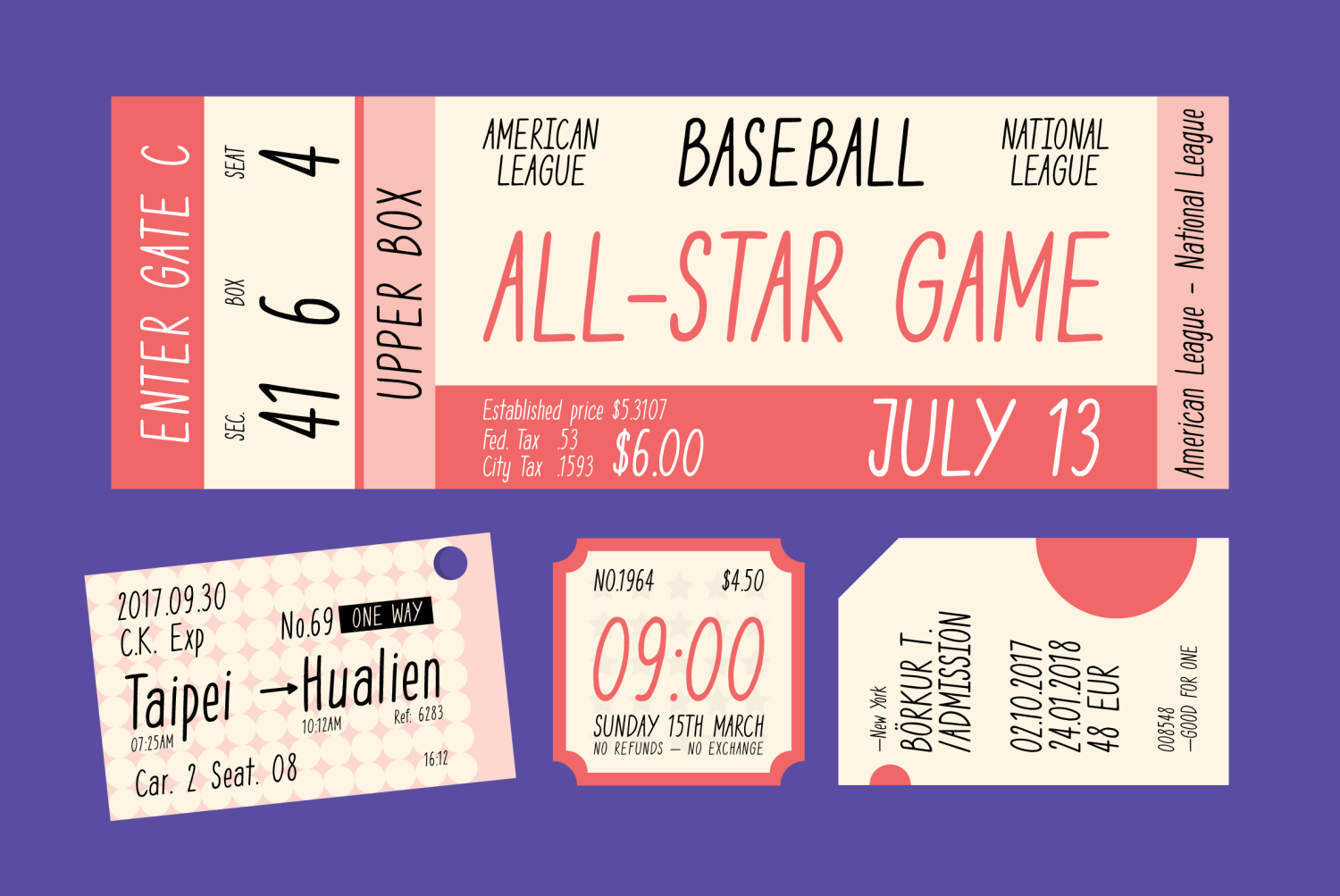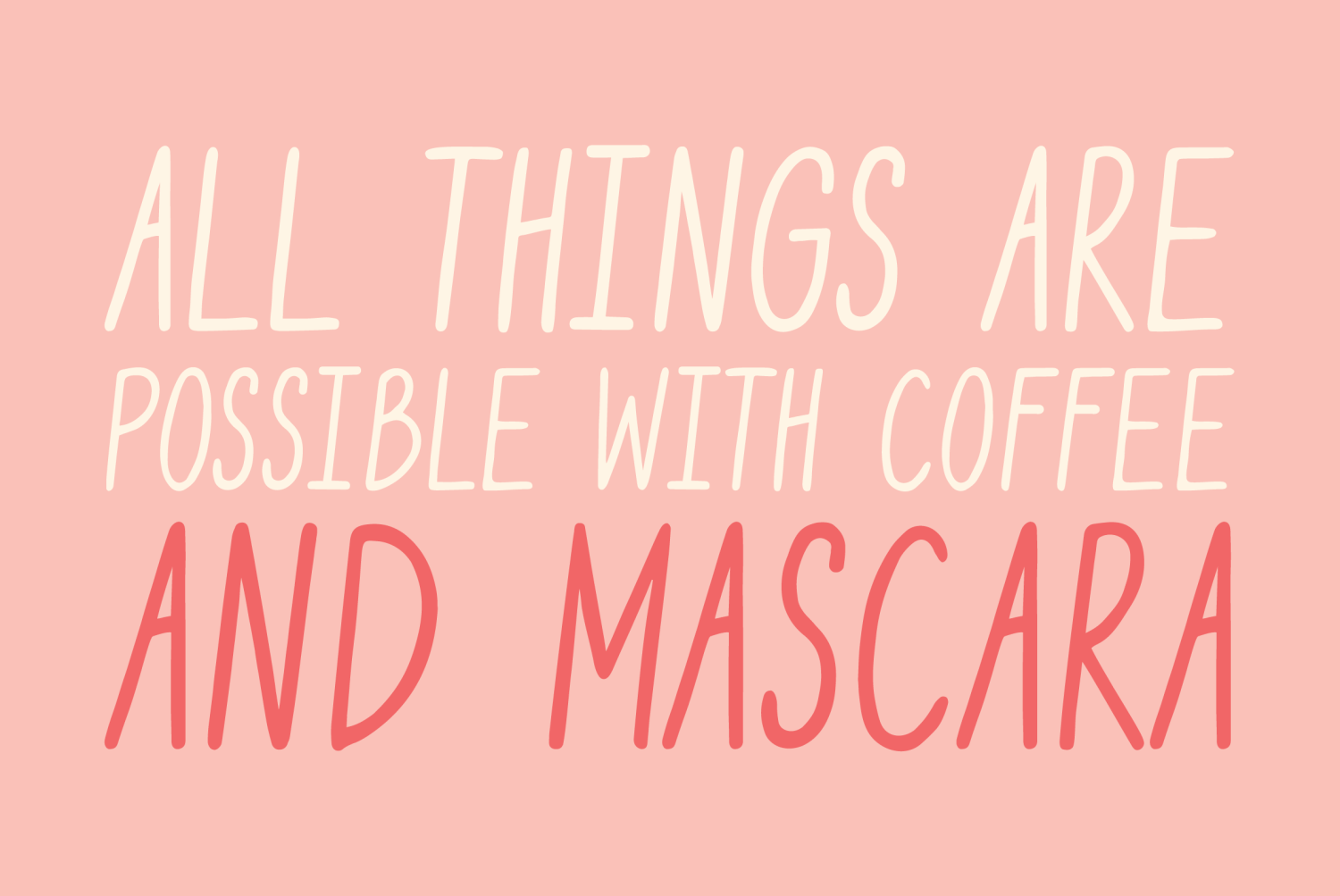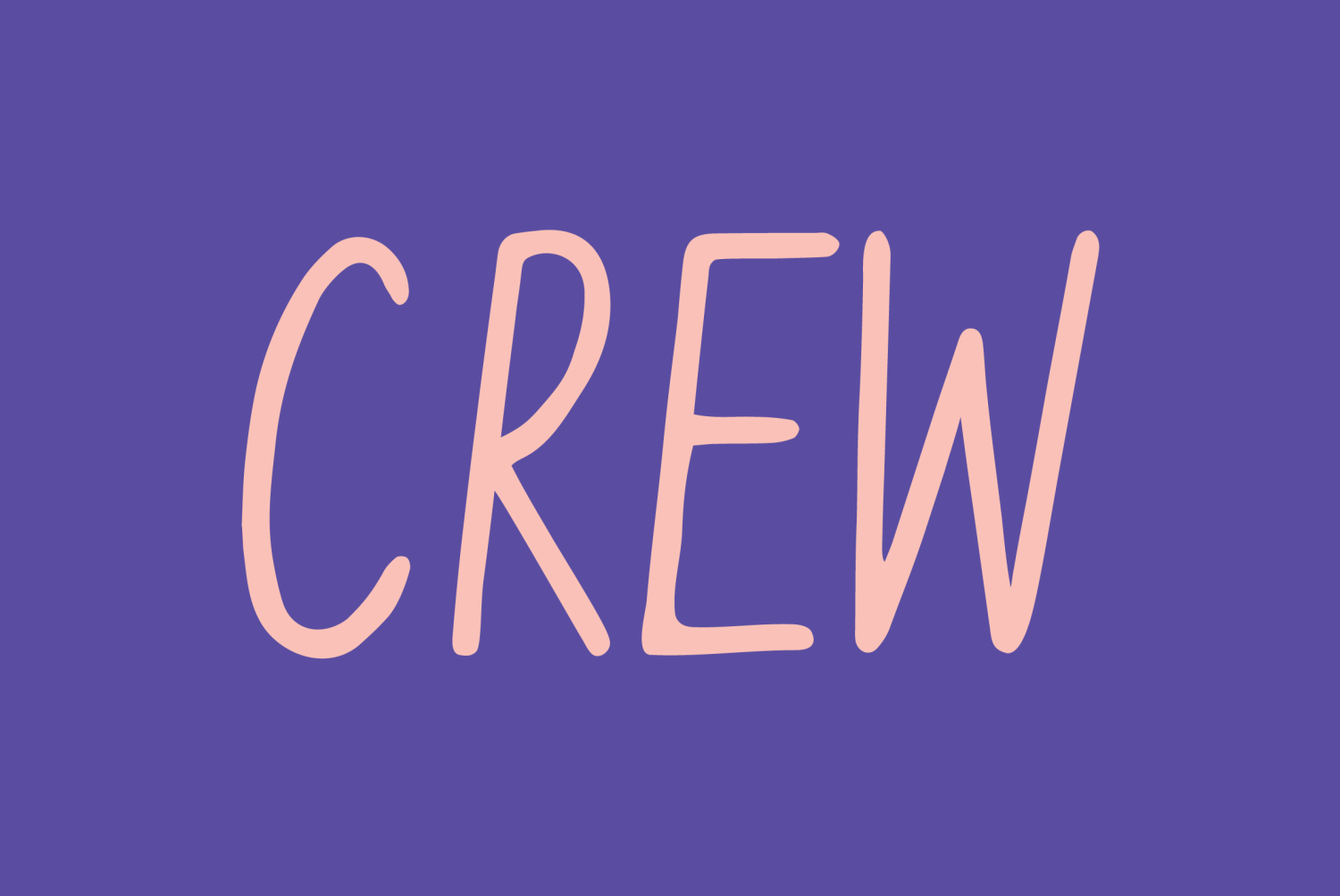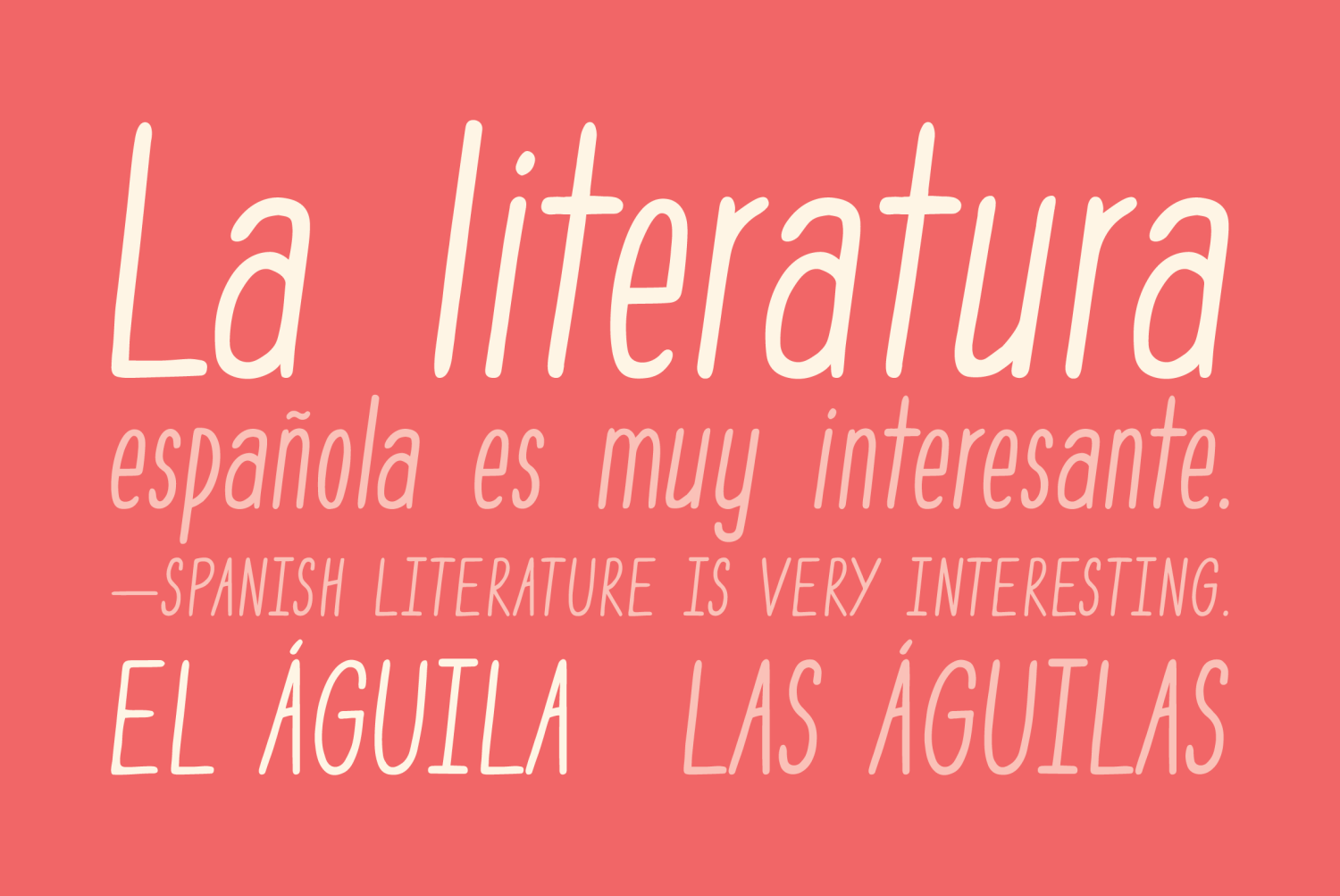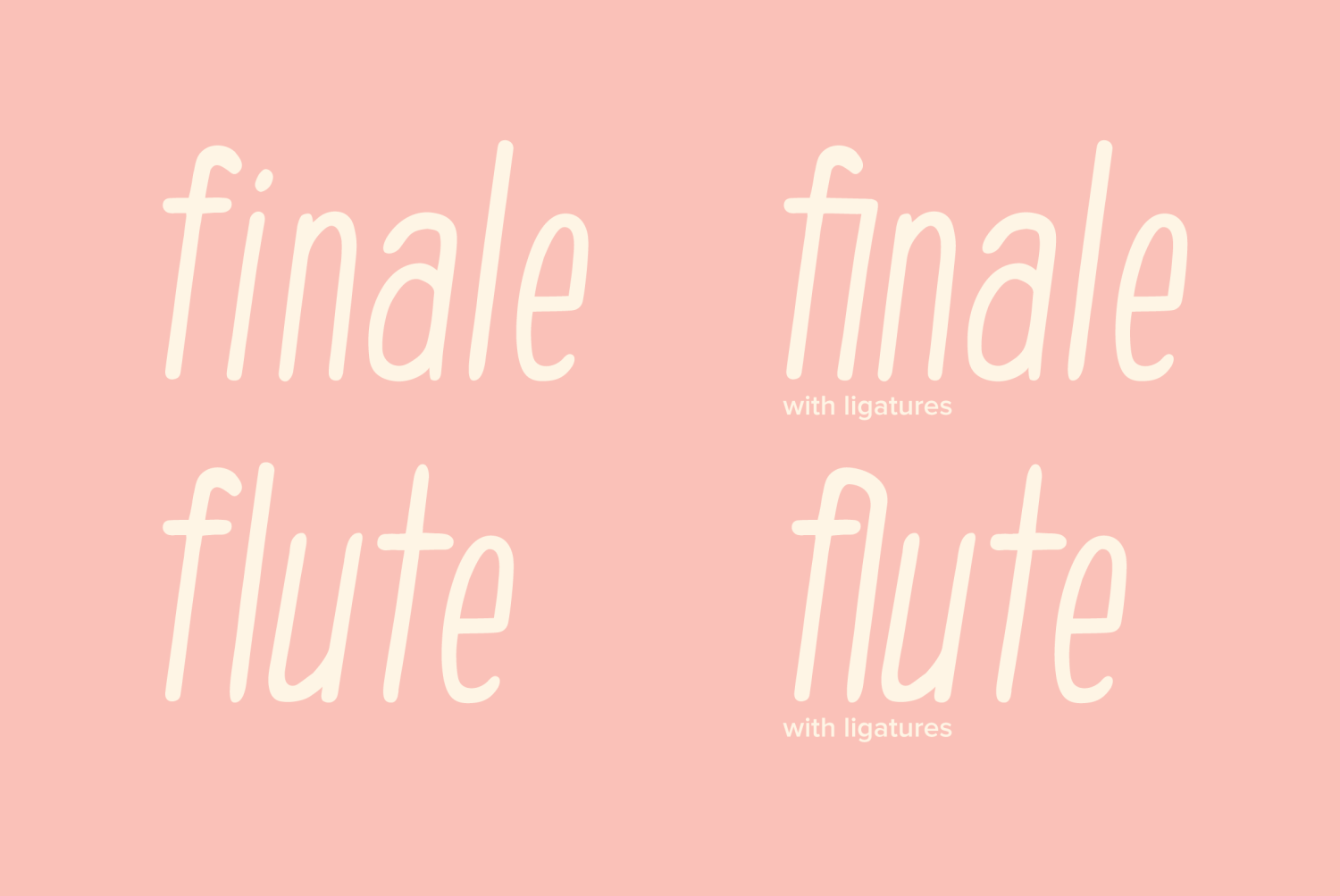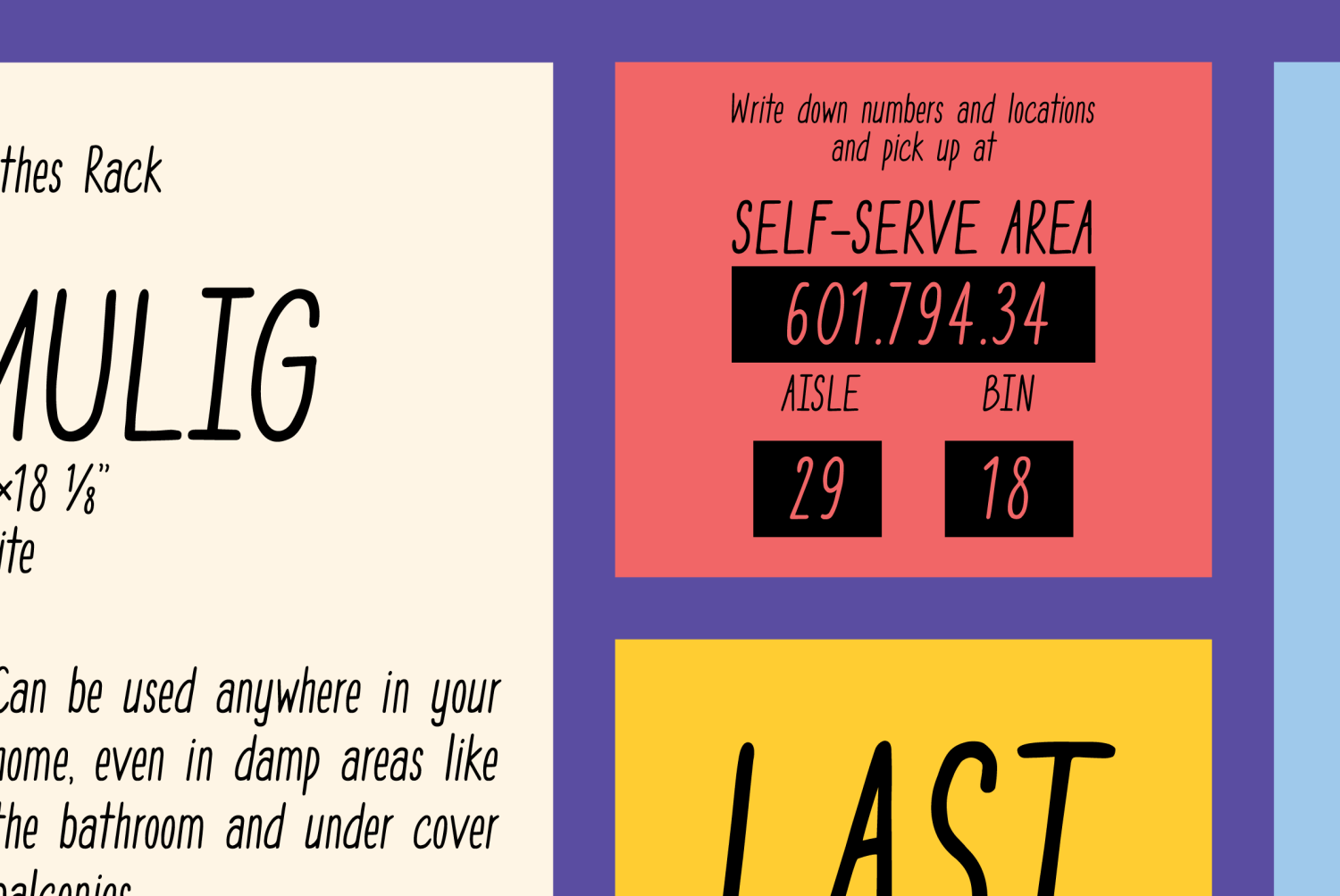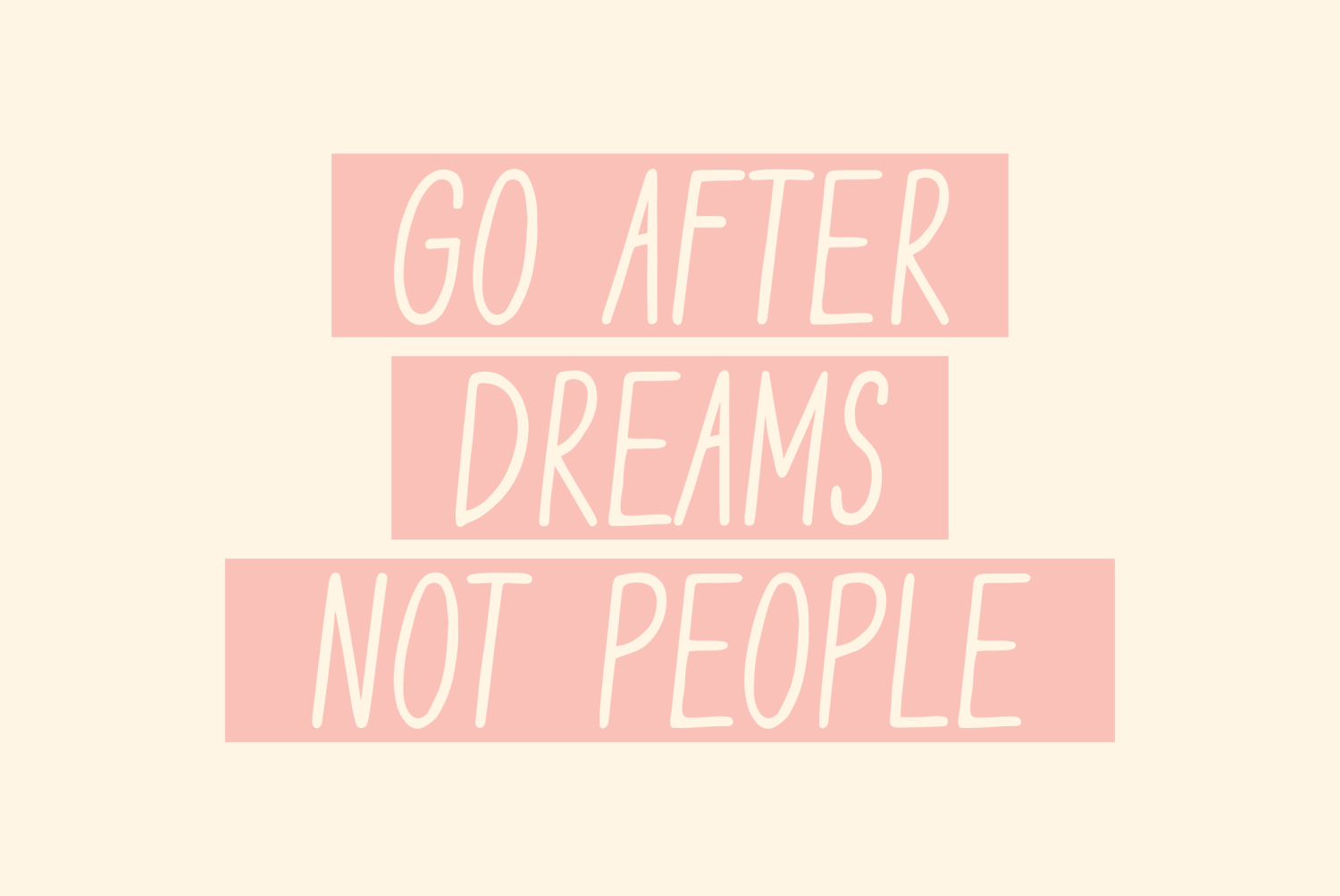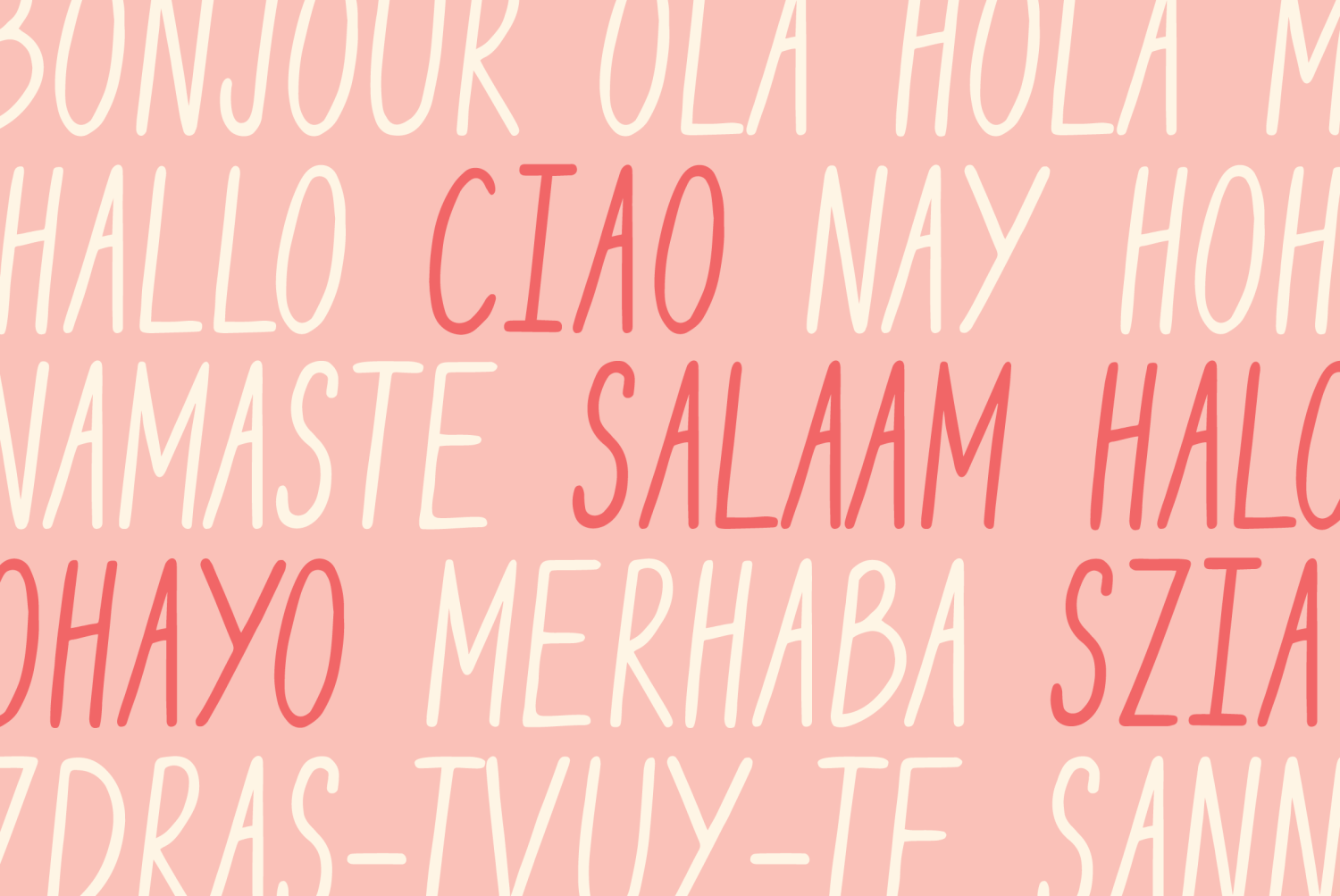
YWFT Crew
Buy NowCasual and expressive, YWFT Crew is a handwritten sans serif that pairs its natural, organic strokes with a subtle urban edge. Perfectly at home in a farmer's market tightly nestled along a busy metropolitan street, Crew is a wholesome, unrefined, and additivefree type design that's ideal for displays, signage, logos, and product packaging related to the organic food industry.
The slightly masculine posture of Crew also makes it a great choice for tough-yet-chic product packaging and advertising marketed toward young, stylish urbanites. Whether you're designing for homegrown foods, beverages, or cosmetics, this letter set will serve well in any atmosphere that needs a handmade and easygoing approach, including labels and greeting cards.